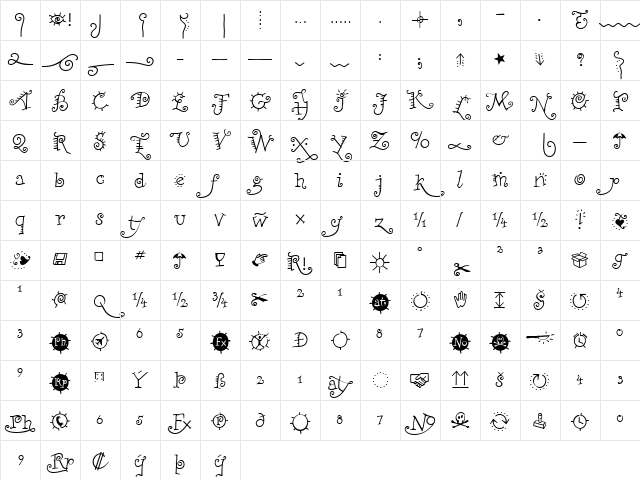
Complete RemedySingleExtras Medium glyph index. Displaying only characters natively supported by RemedySingleExtras Medium font.
RemedySingleExtras is a composed and adaptable typeface that performs quietly and consistently across a wide range of design contexts.